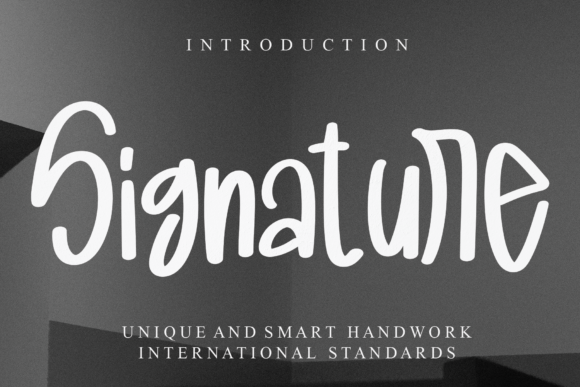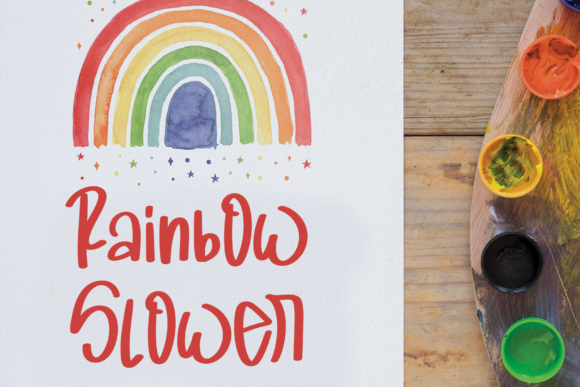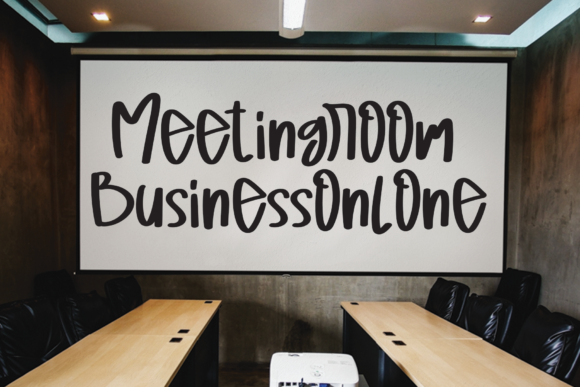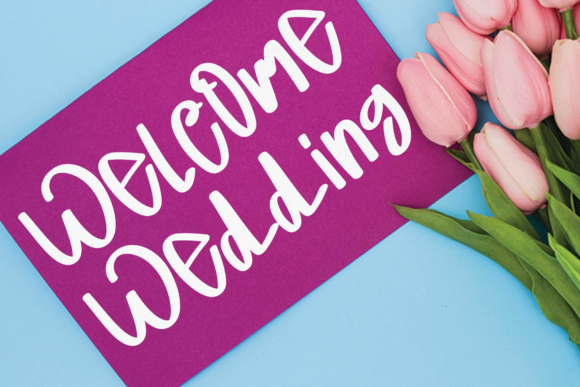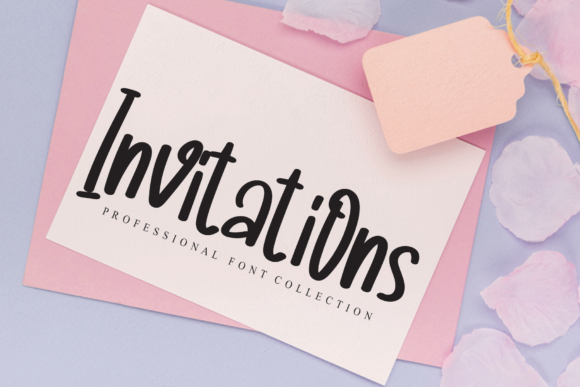
Signature is a fascinating handwritten font. It resembles natural writing and it will add a nice, authentic, and unique touch to each of your creative projects!